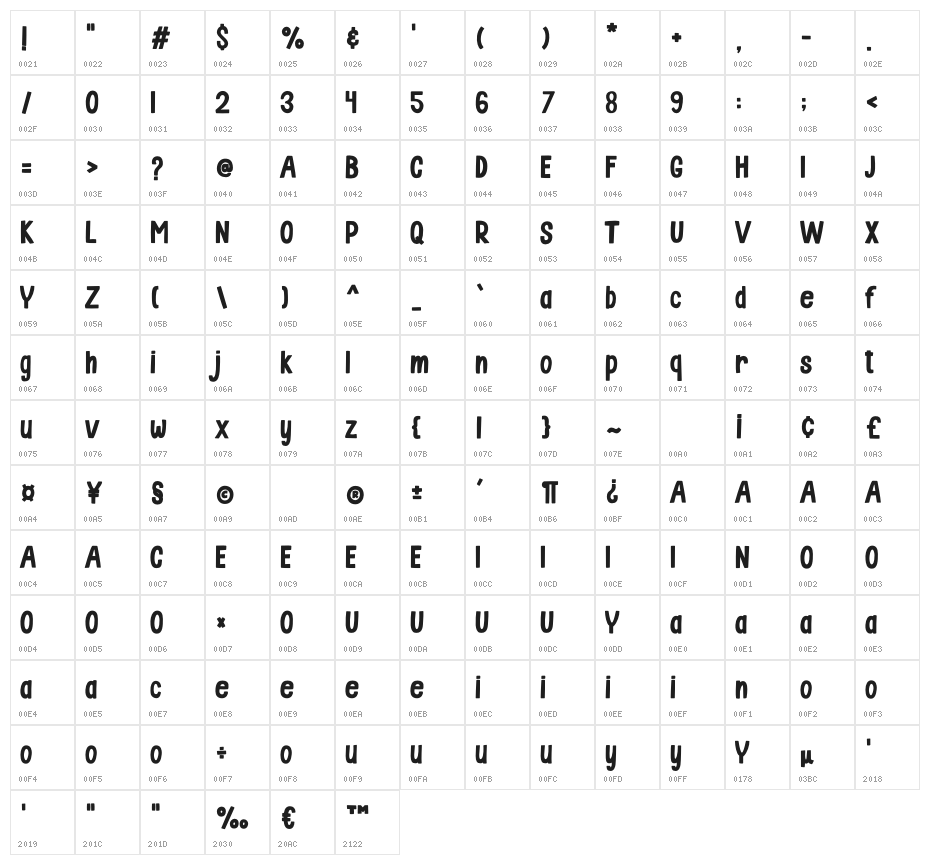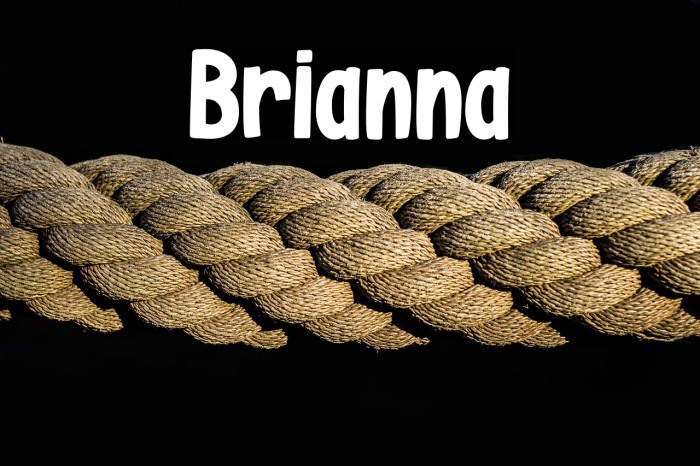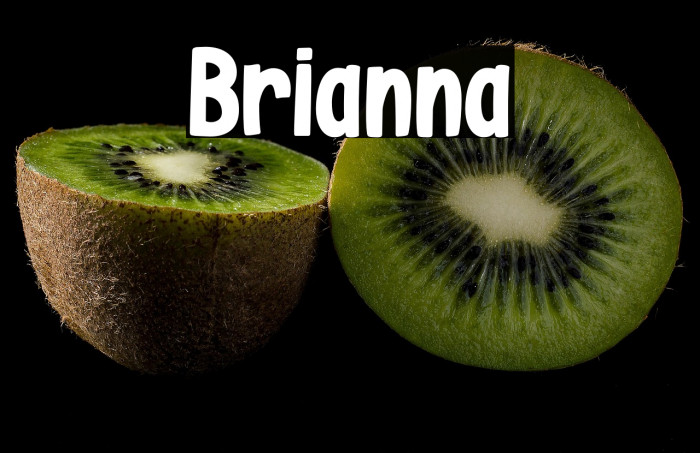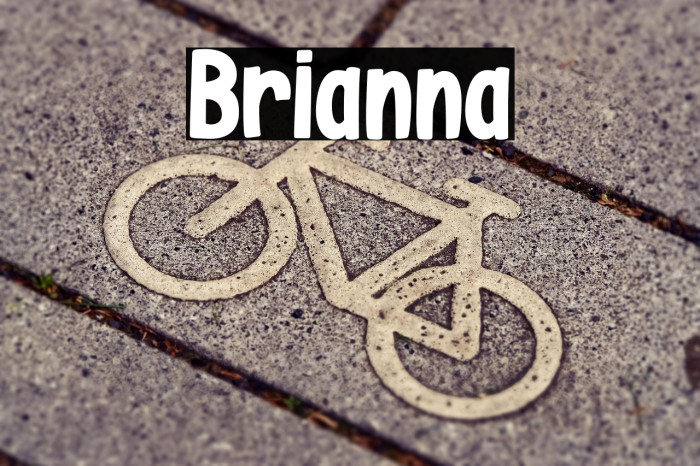
Brianna Font
Brianna Description
This font features a playful and bold style with rounded edges and a slightly irregular form, giving it a hand-drawn appearance. The characters are thick and consistent in weight, providing a strong visual impact. The uppercase and lowercase letters maintain a uniform height, enhancing readability while adding a whimsical touch. The numerals and special characters are designed to match the overall playful aesthetic, making this font suitable for creative and informal projects. Its boldness and unique character shapes make it stand out, perfect for capturing attention.
| Proposed Projects | Ideal for children's books, playful branding, posters, and creative invitations. |